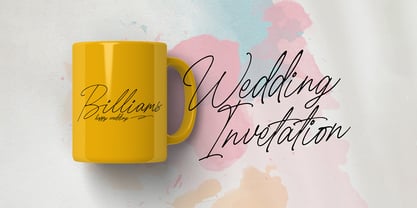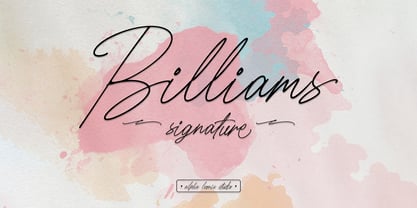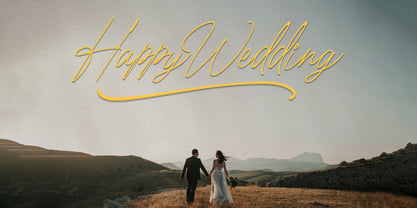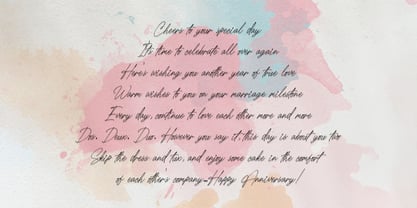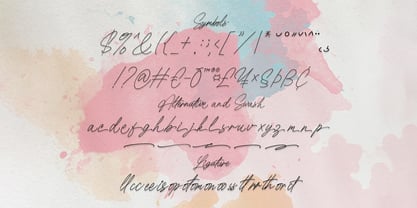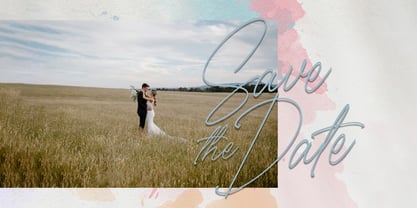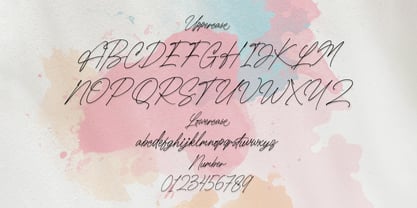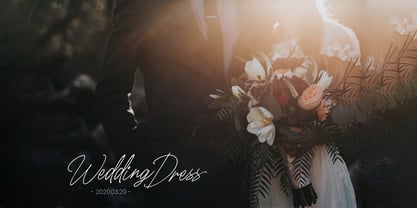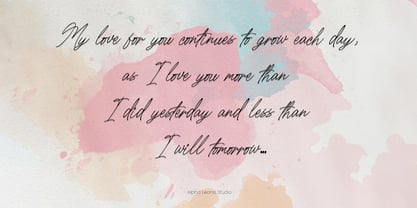
Billams Signature
The Billams Signature Font Family was designed by Alphaleonis Std and published by Alphaleonis Std. Billams Signature contains 1 styles. More about this family
Billiams Signature - Handwritten Script Font Introducing the new Billiams Signature a modern script handwritten font !!! For those of you who are needing a touch of elegant, simple, natural and modernity for your designs, this font was created for you! Billiams Signature was built with OpenType features and includes ligatures, alternates, begining and ending swashes, numbers, punctuation, and it also supports your work design. The font has Great for head title, printed quotes, greeting card, invitation, wedding, events and etc